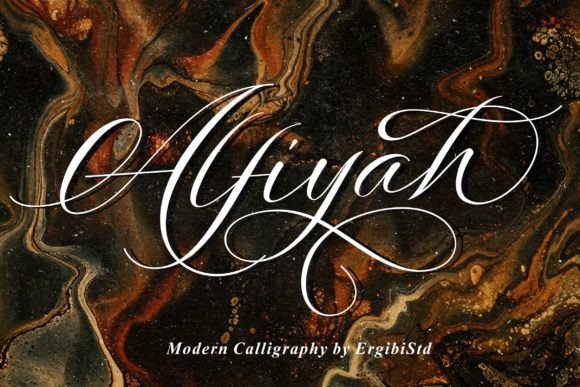
Introducing Alfiyah Font, a calligraphy script font that captivates with its enchanting allure. Immerse yourself in a world of elegance and sophistication as you explore this meticulously crafted masterpiece. Alfiyah's classic charm, adorned with a modern twist, exudes a timeless appeal, making it the perfect choice for those seeking a touch of refinement in their designs.
Alfiyah's versatility knows no bounds. Its graceful strokes dance effortlessly across a variety of formal settings, adding a touch of grace to wedding invitations, labels, restaurant menus, and logos. Let your creativity soar as you explore the world of fashion, makeup, stationery, novels, magazines, books, greeting cards, packaging, and advertisements. The possibilities are endless with Alfiyah at your fingertips.
With its PUA encoding, Alfiyah grants you effortless access to a treasure trove of glyphs and swashes, unlocking a world of artistic expression. Unleash your imagination and let your designs flourish with Alfiyah's boundless charm.
Alfiyah is not just a font; it's a gateway to a world of creative possibilities. Transform your designs into captivating works of art, leaving an indelible mark on the hearts of your audience. Experience the magic of Alfiyah today and embark on a journey of creative exploration like never before.